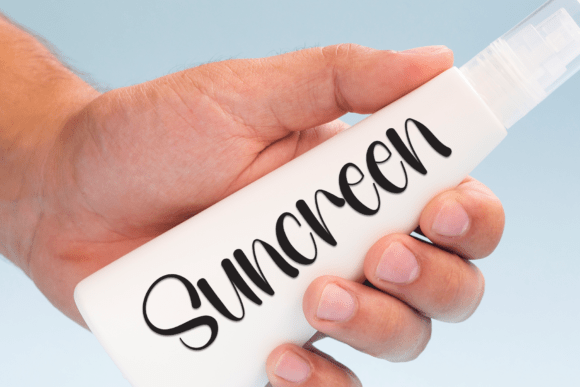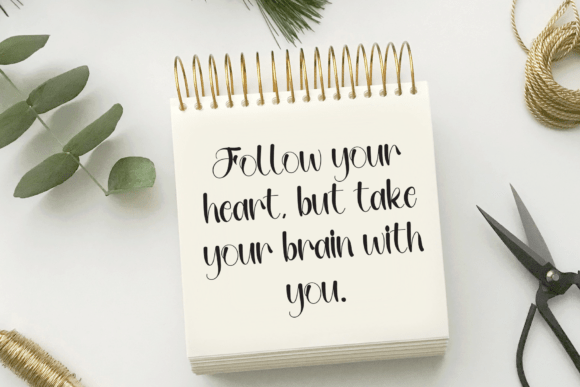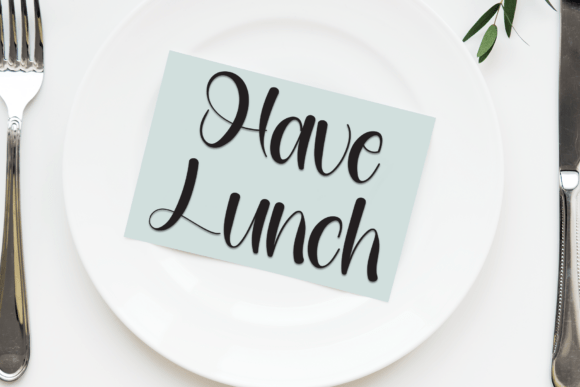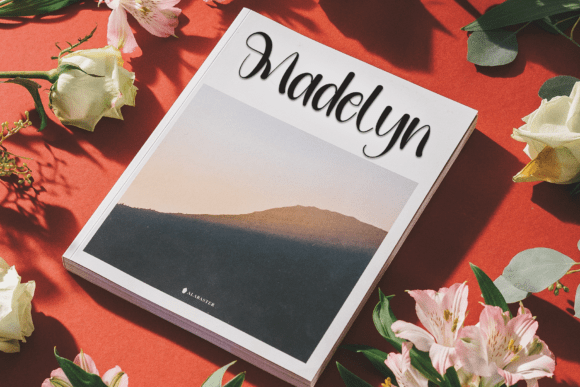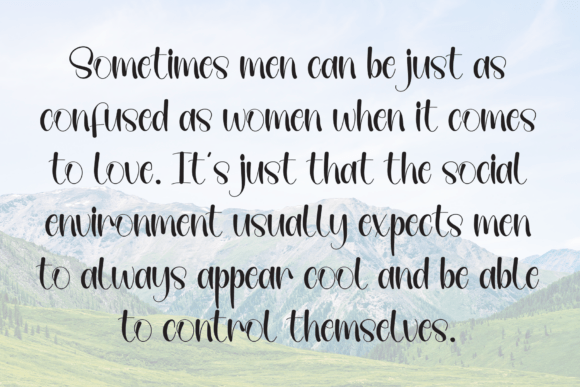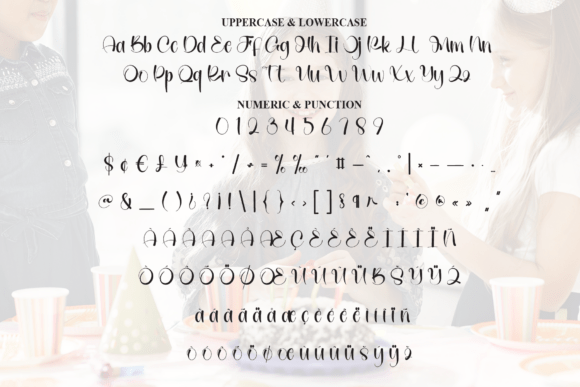
The Perfect Blend of Art and Design: Unveiling the Birthday Party Font
As a designer, there’s nothing quite like the thrill of brainstorming a new project and bringing your ideas to life. You’ve got your concept, your color palette, and your typography – but then you stumble upon that one font that makes it all come together. For many of us, that moment is when we discover the Birthday Party Font, a stylish script font that embodies artistic flair and contemporary elegance.
This beautiful font features fluid brush strokes, dynamic curves, and expressive letterforms, making it perfect for logos, invitations, packaging, and social media graphics. With its natural flow and vibrant character, the Birthday Party Font adds a creative and sophisticated touch to any design, making it a valuable asset for designers looking to elevate their work.
Birthday Party Font Key Features
- Unique Characteristics: The Birthday Party Font features a unique, playful design with bold lines, bright colors, and whimsical illustrations, making it perfect for birthday party invitations, decorations, and other celebratory materials.
- Font Style: The font comes in two styles: regular and bold, allowing designers to choose the style that best suits their design needs.
Birthday Party Font Review
Overall, I’d say the Birthday Party Font is a fun, playful addition to any design project. ✨ I love the vibrant colors and whimsical feel it brings to the table. It’s perfect for creating eye-catching party invitations, social media posts, or even advertisements for kids’ products.
The font’s versatility is another plus. ✨ You can use it in a variety of contexts, from casual to more formal events. The different font styles and colors included in the package give you plenty of options to get creative.
- ⚠️ The font might be too loud or overwhelming for more serious projects. Use it sparingly to avoid overwhelming the viewer.
- ⚠️ Some users might find the font a bit too cartoonish or childish, which could be a turn-off for certain audiences.
Overall, I think the Birthday Party Font is a solid choice for designers looking to add a bit of whimsy to their work. While it may not be the best fit for every project, it’s definitely a fun and creative option to have in your toolkit.
Tips for Getting the Most Out of the Birthday Party Font
Use the Birthday Party Font to create playful and festive designs for birthday invitations, party decorations, and more.
Combine the font with colorful graphics and illustrations to add to the celebratory feel.
The Birthday Party Font is ideal for:
Birthday invitations and party decorations
Party hats and banners
Children’s birthday cards and gift tags
Compared to Birthday Party Font, Great Vibes has a more elegant and refined feel, making it suitable for a wider range of applications.
While Birthday Party Font is more playful and energetic, Pacifico is more subdued and elegant, making it a great choice for designs that require a bit more polish.